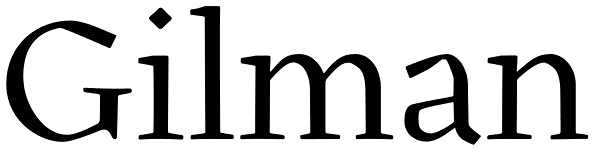
Gilman
The idea for Gilman started simple enough, a serif typeface that works well for large amounts of text. However, after many struggles creating a quality typeface digitally, I decided to first draw the complete alphabet by hand on paper, and then...